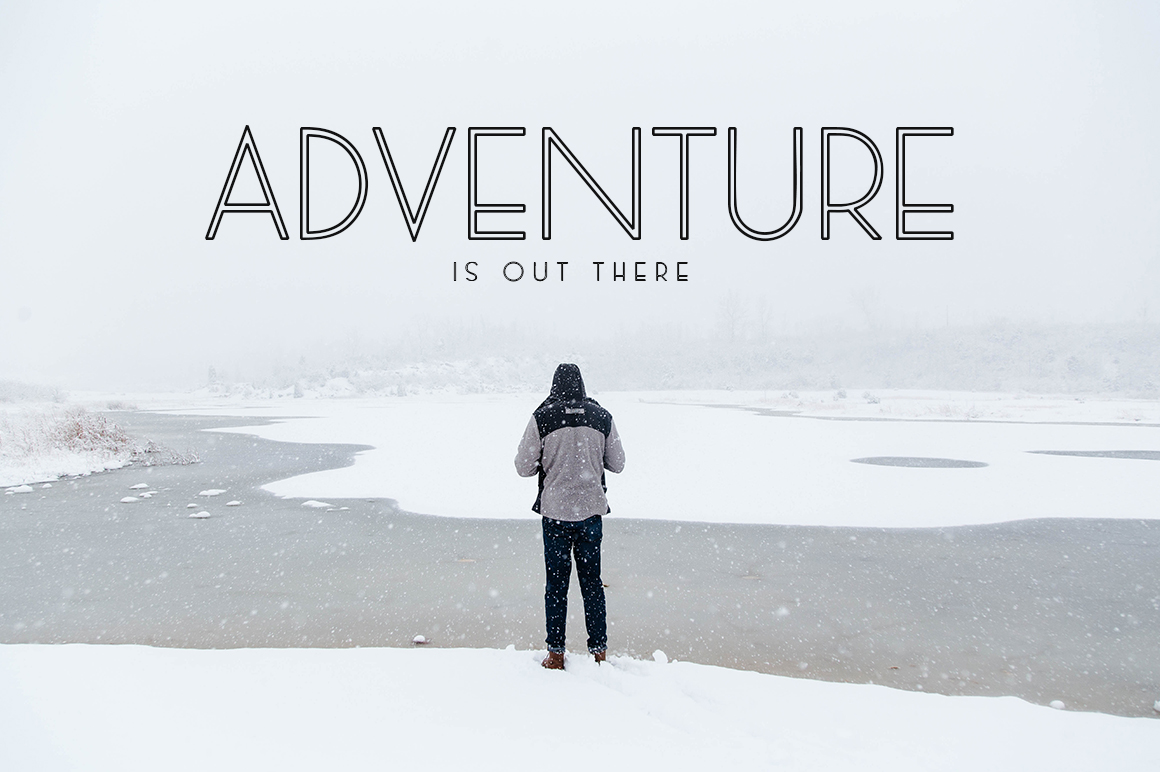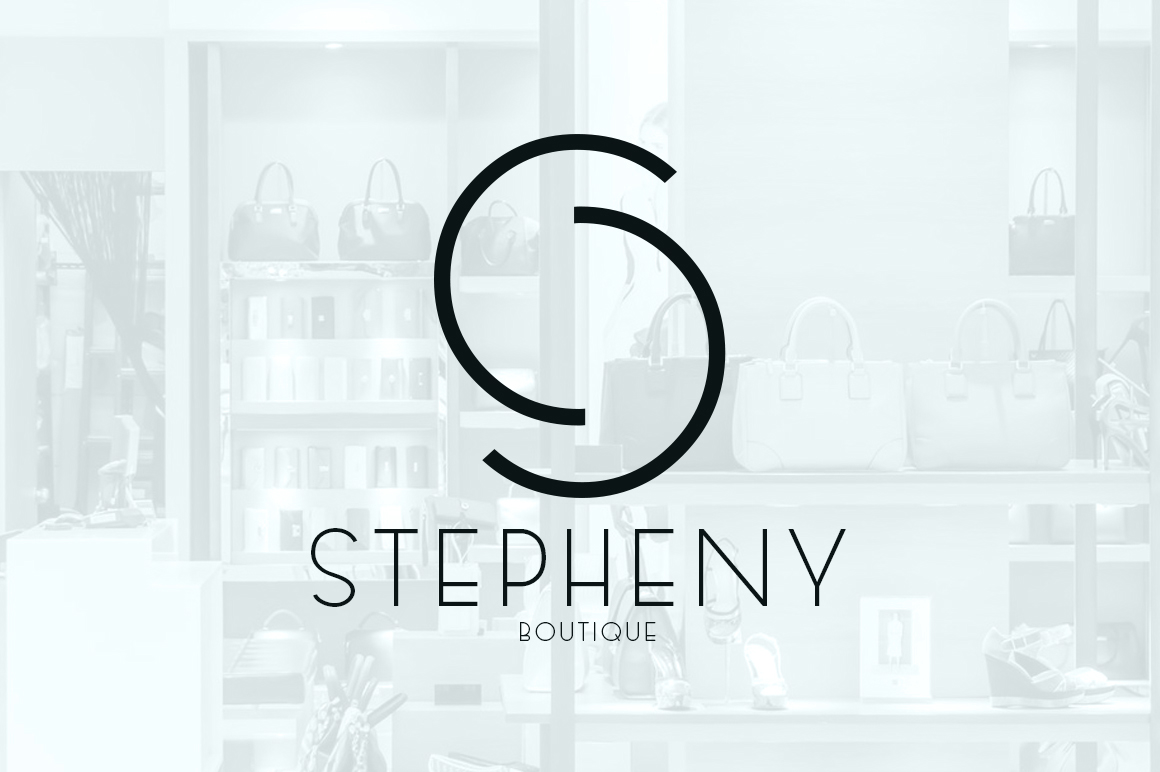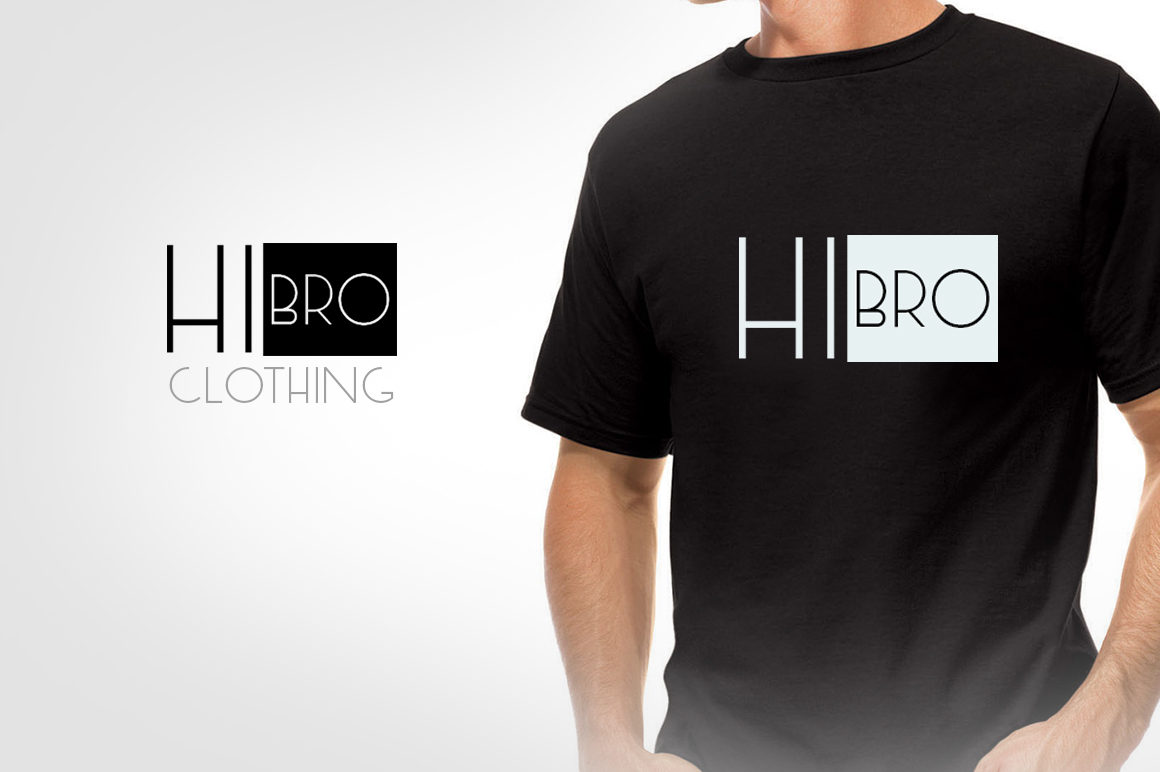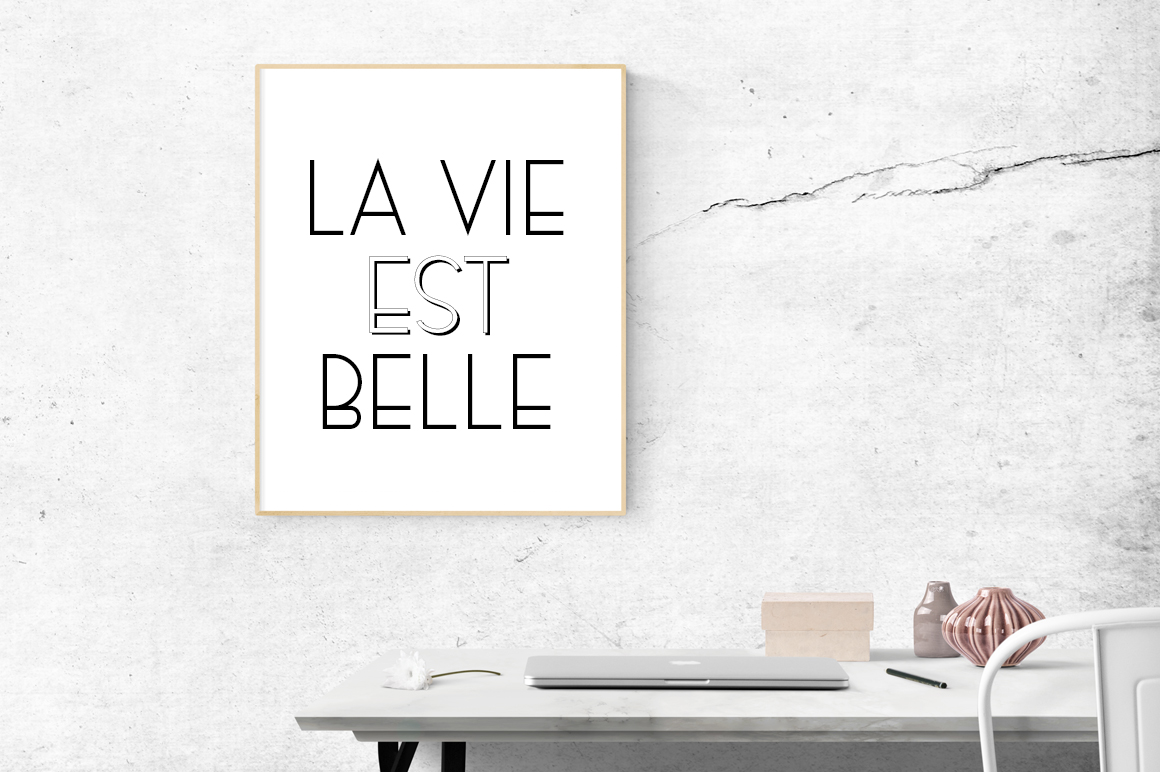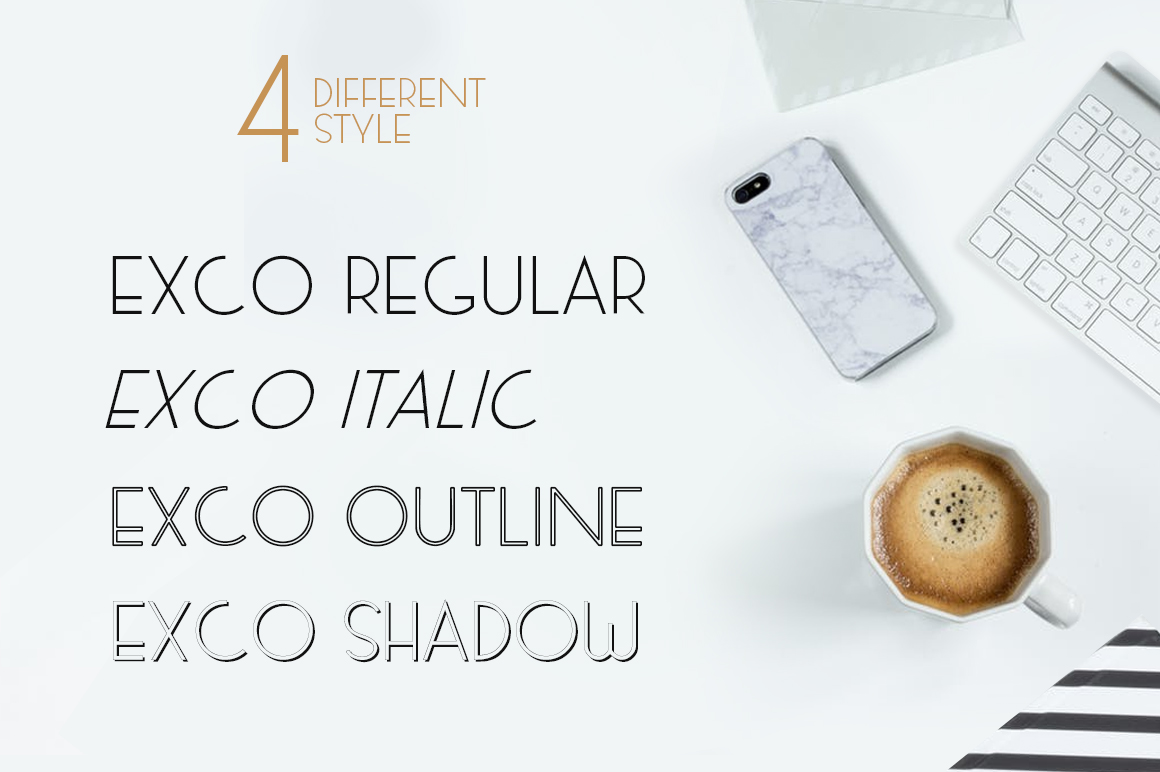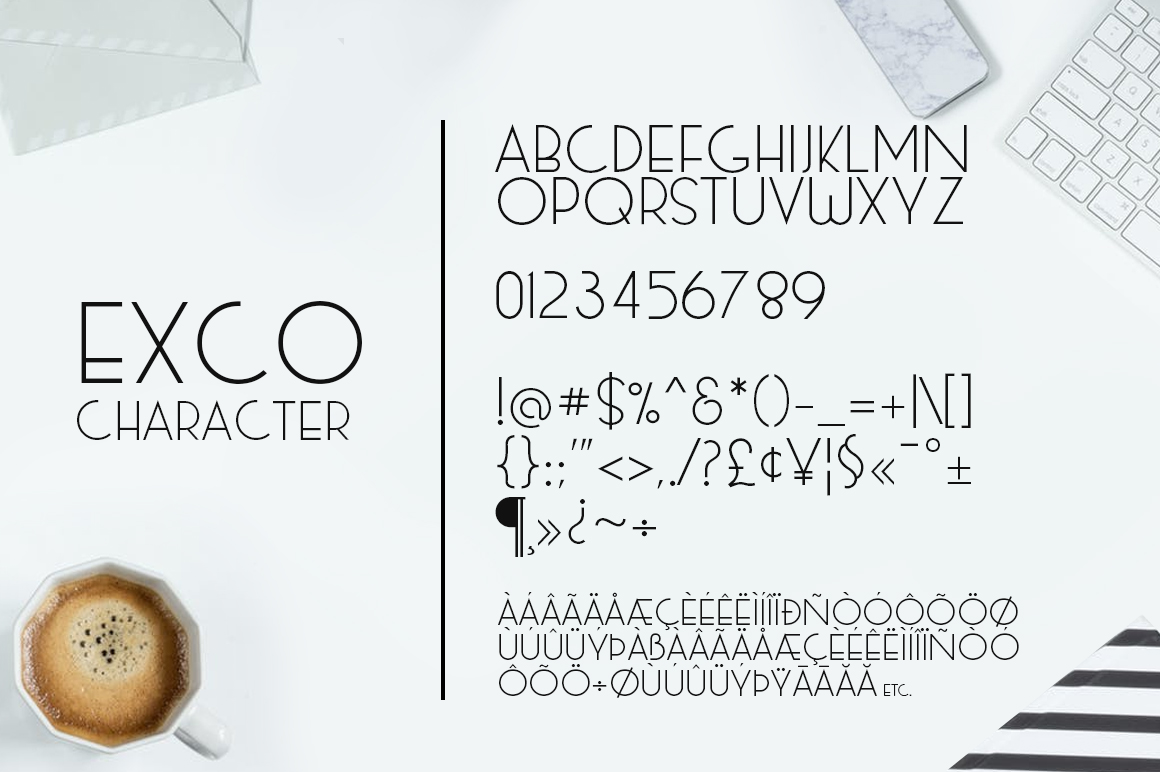
Introduction to Exco Font
Exco a minimalistic font that consists out of four styles, regular, italic, outline & shadow.
Key Features of Exco Font
Why Choose Exco Font?
Exco Font offers exceptional quality and versatility, making it a valuable addition to your design toolkit. Whether you’re creating for personal projects or commercial use, Exco Font delivers professional results.